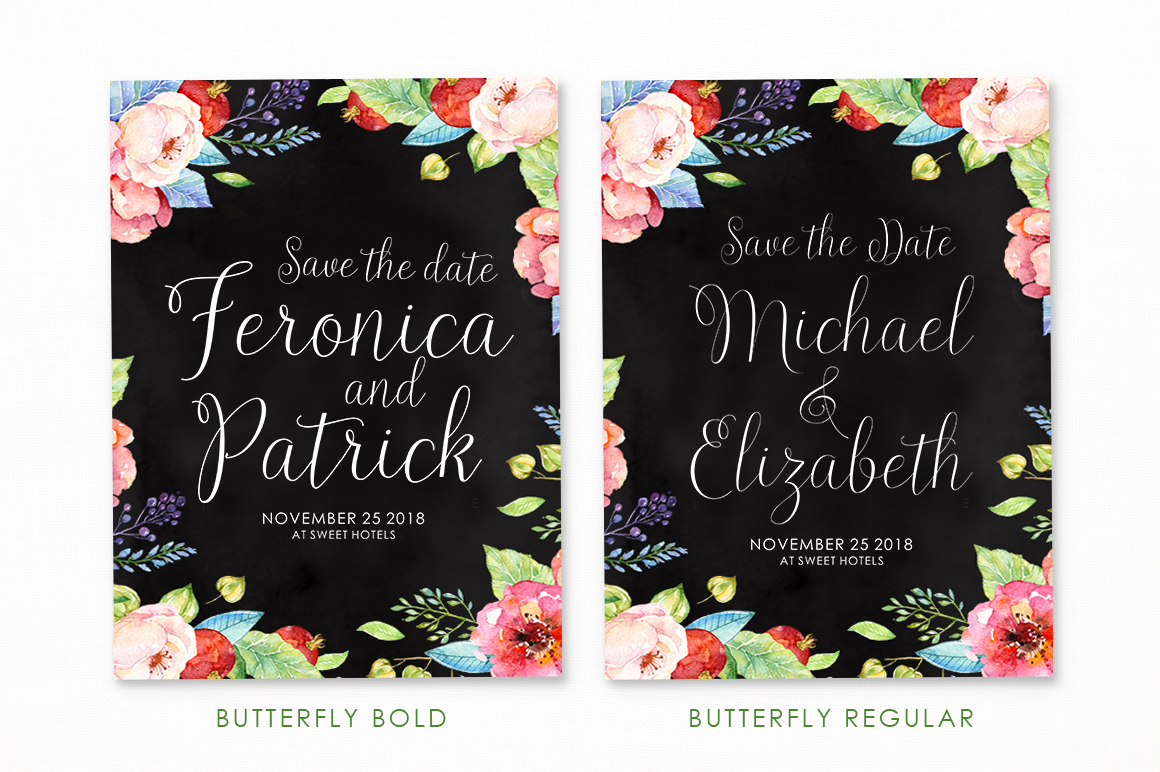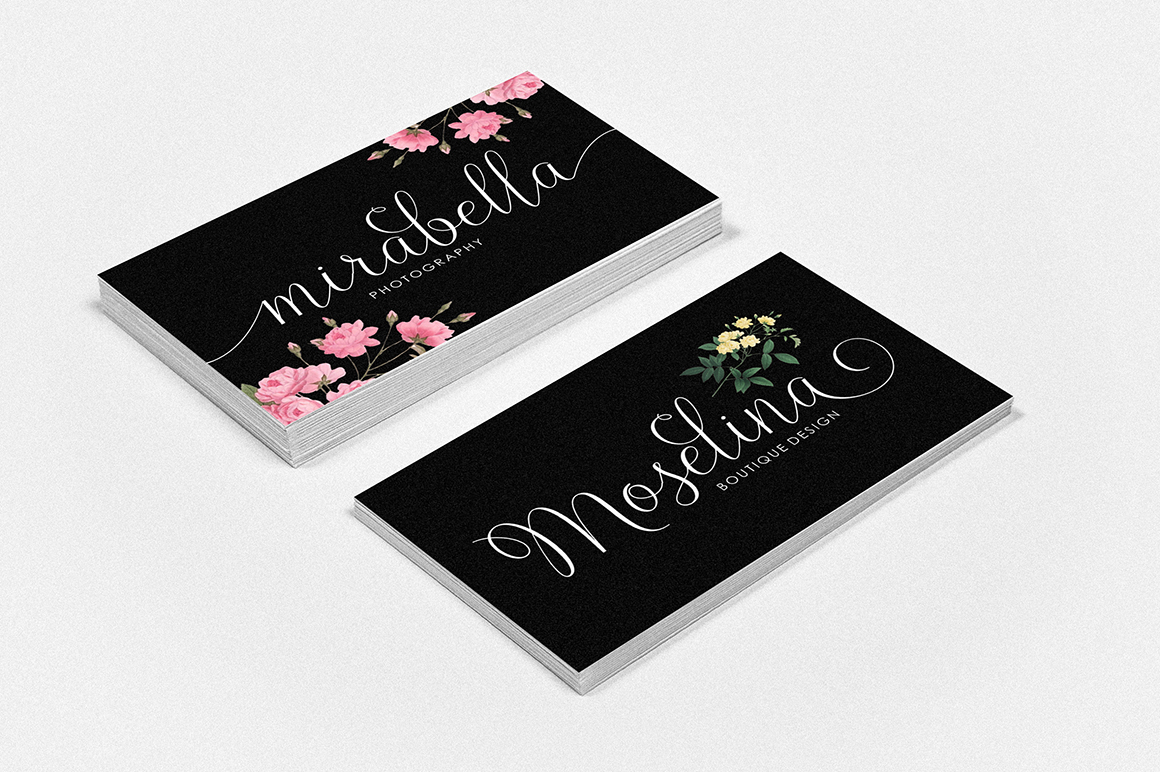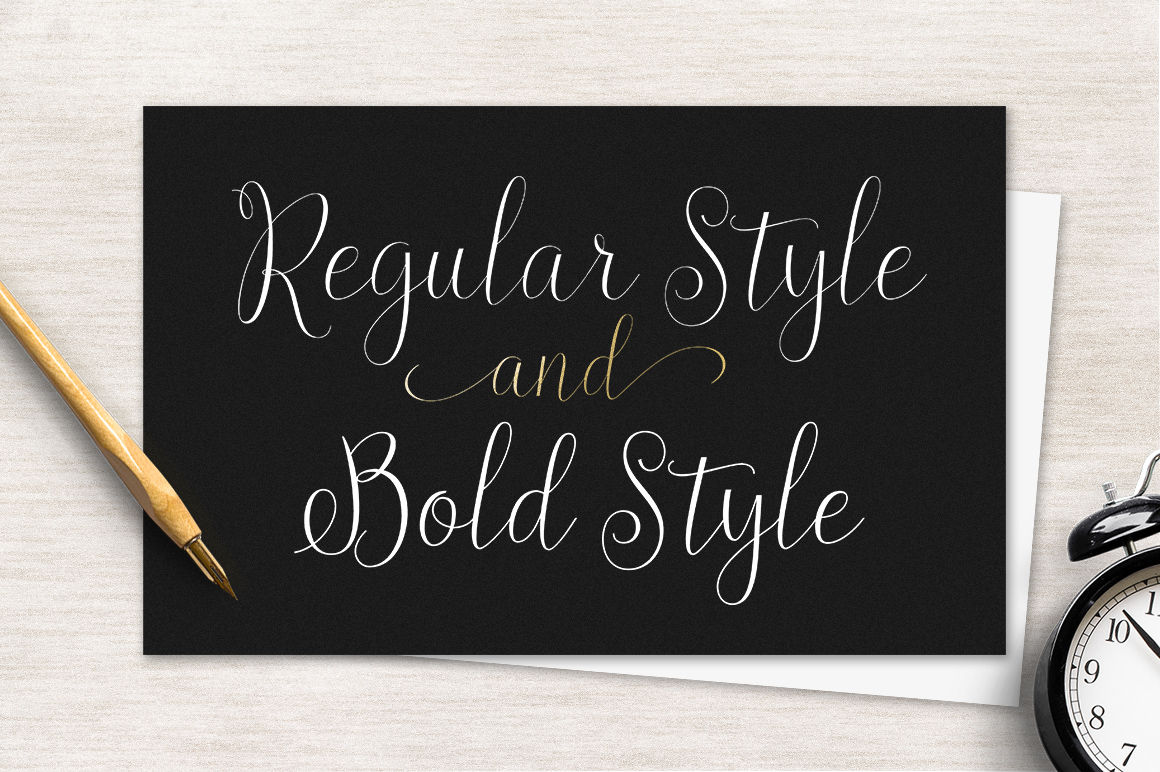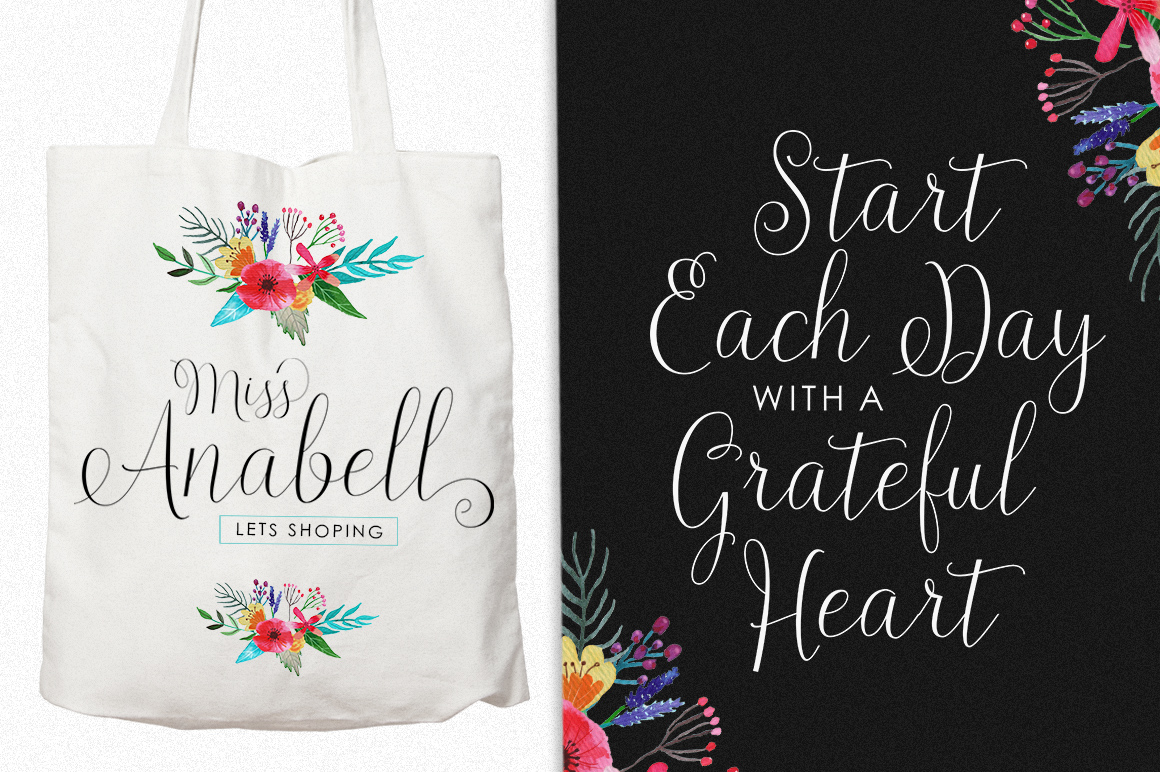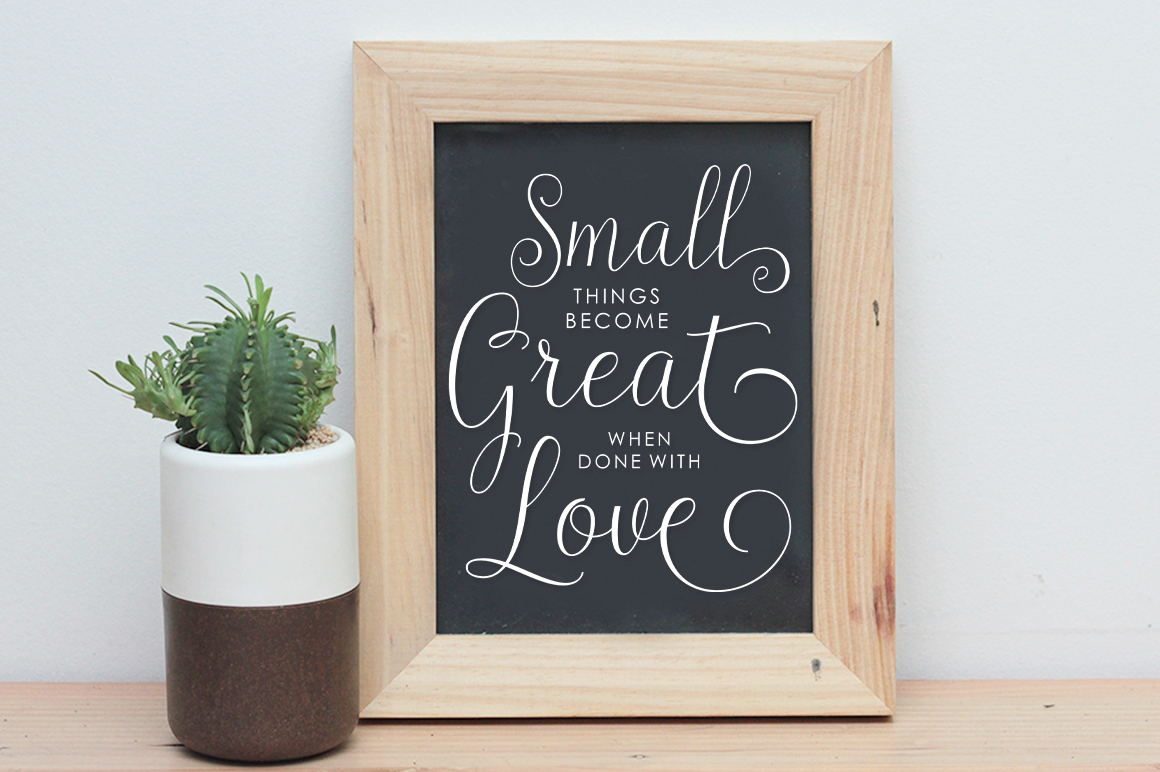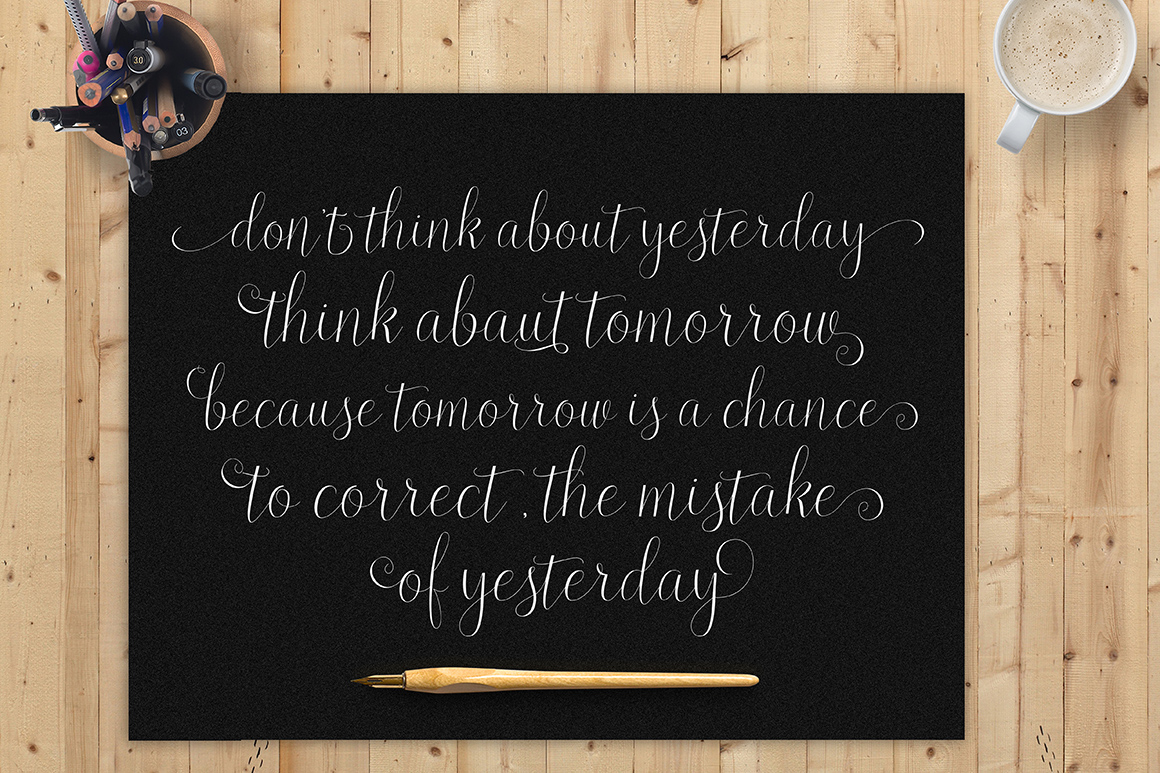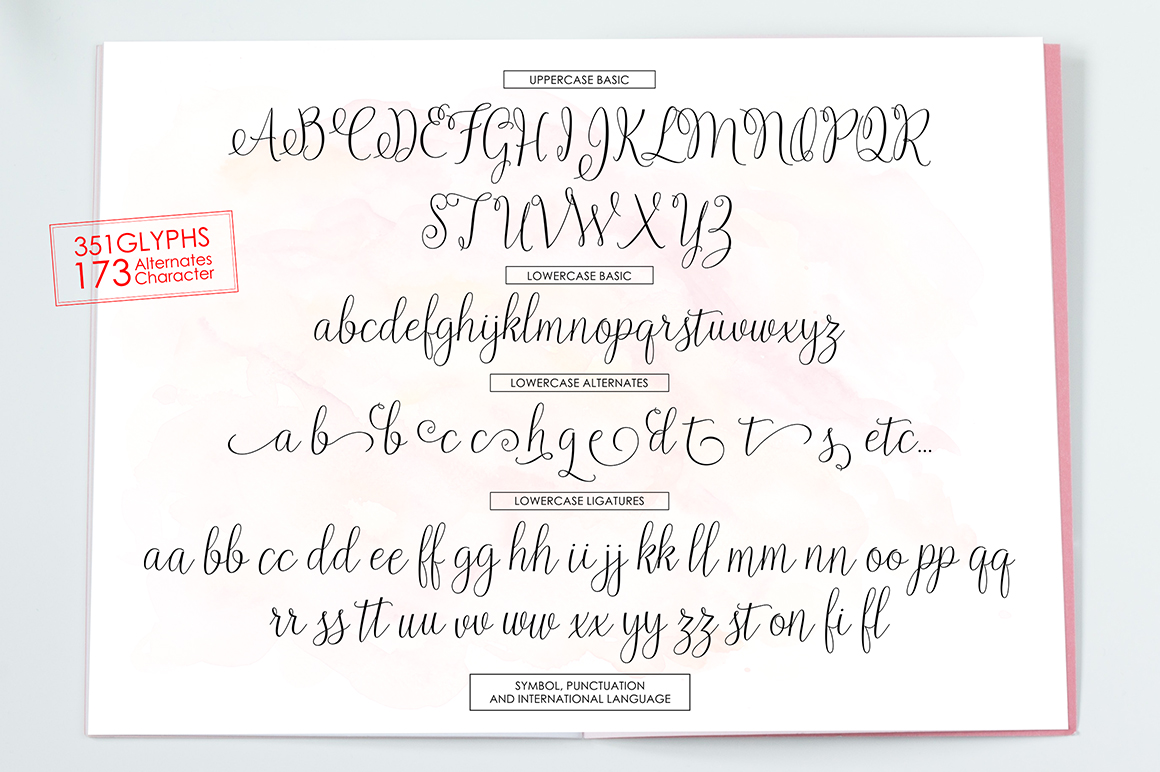
Butterfly Script Font
About Butterfly Script Font
Butterfly is a modern calligraphy design and includes a regular and bold version of the script.
It’s packed with stunning PUA encoded swashes.